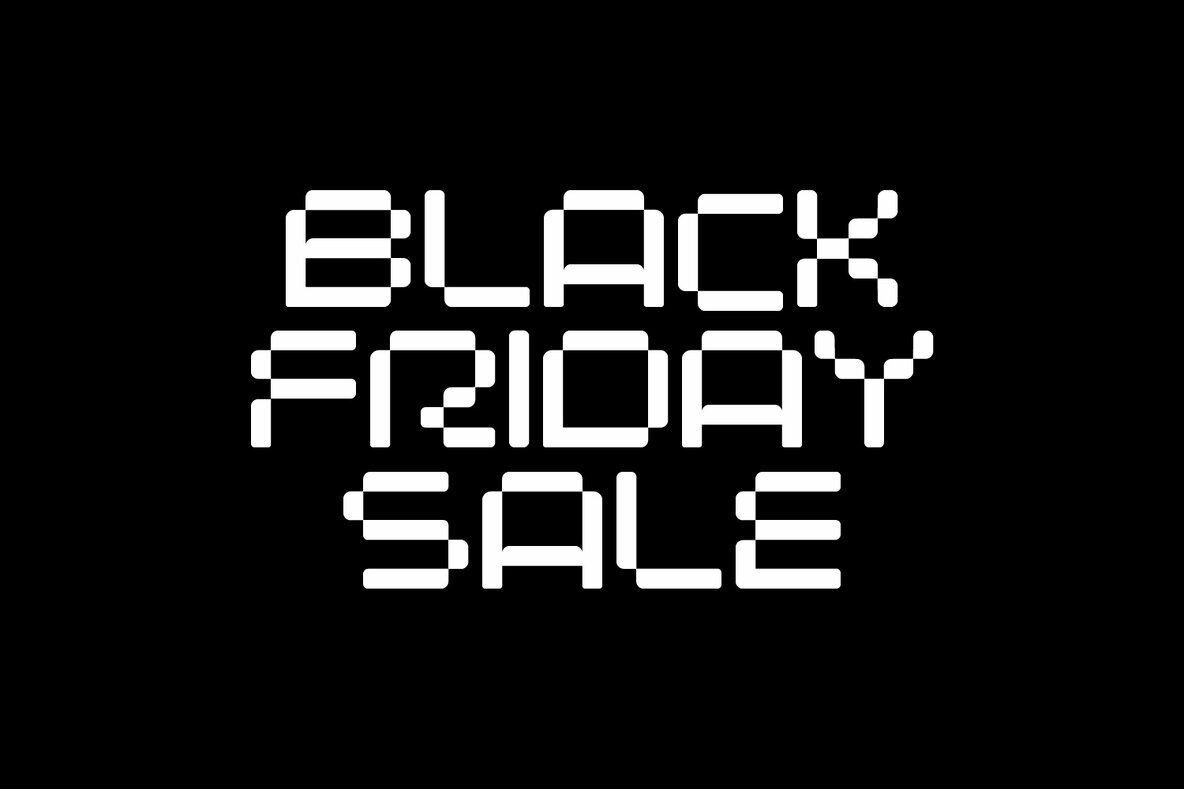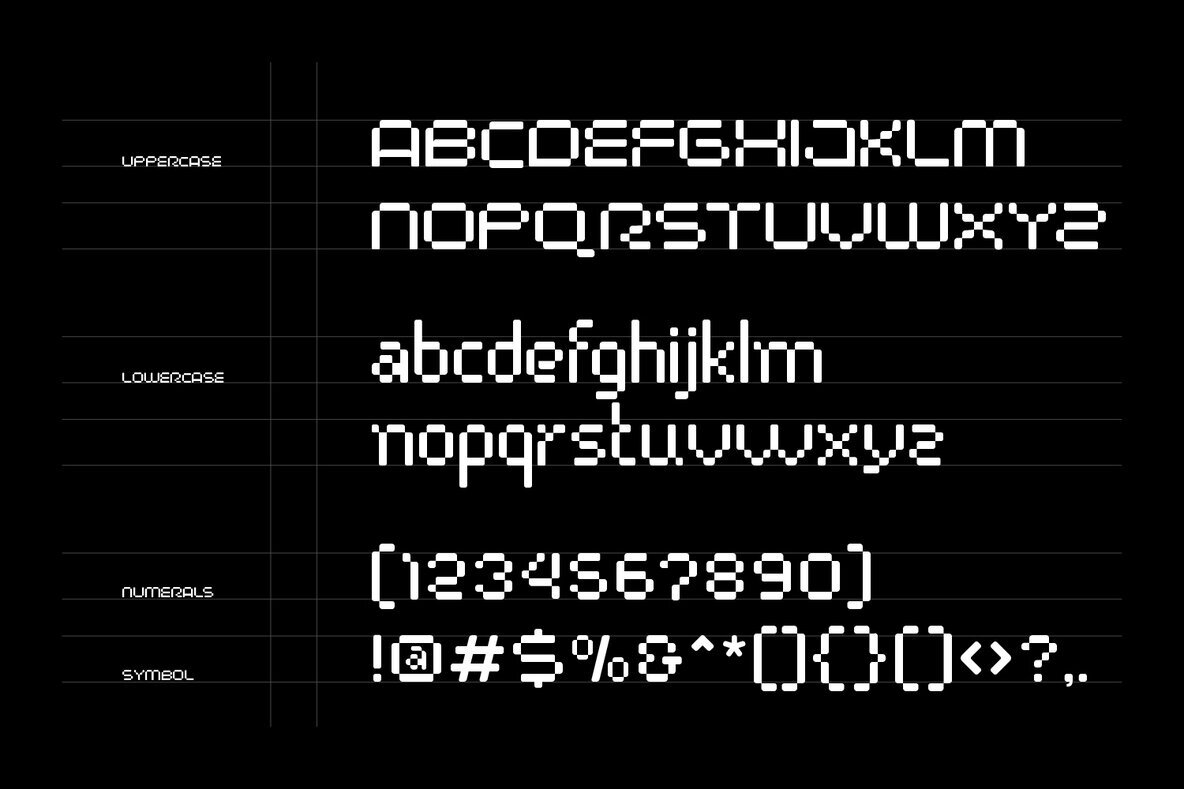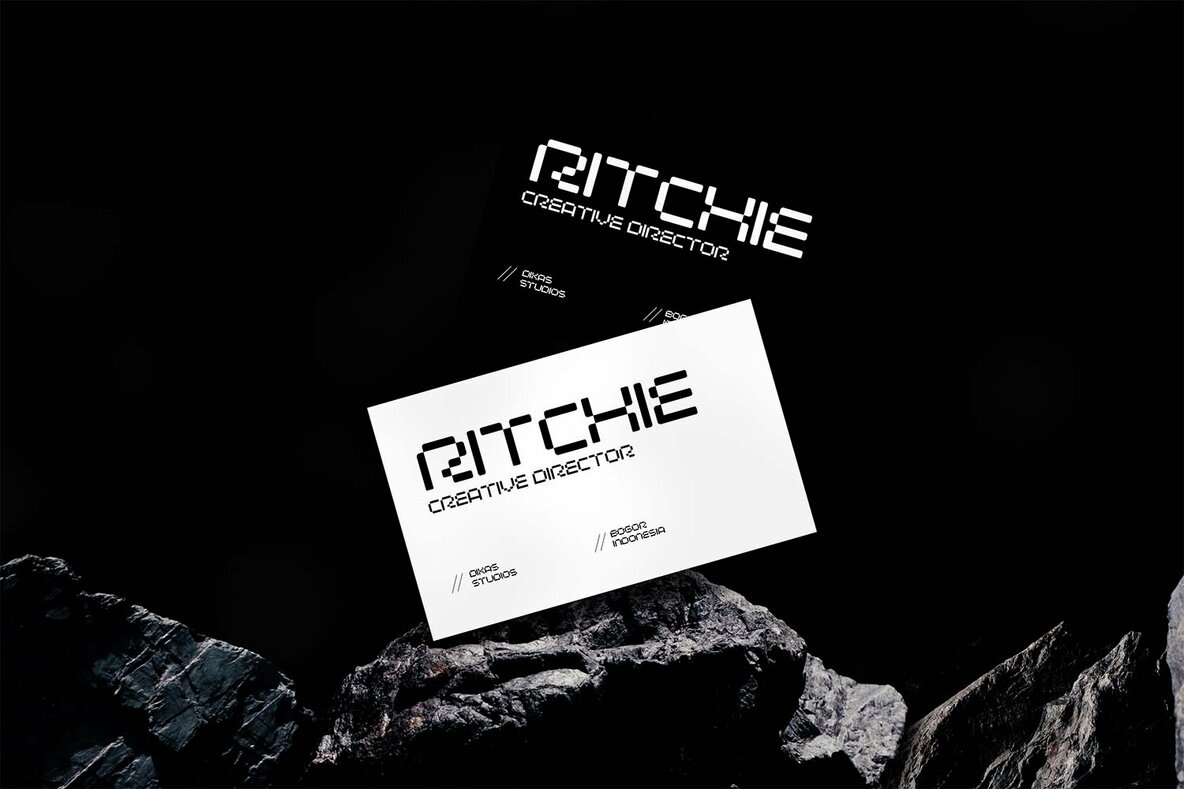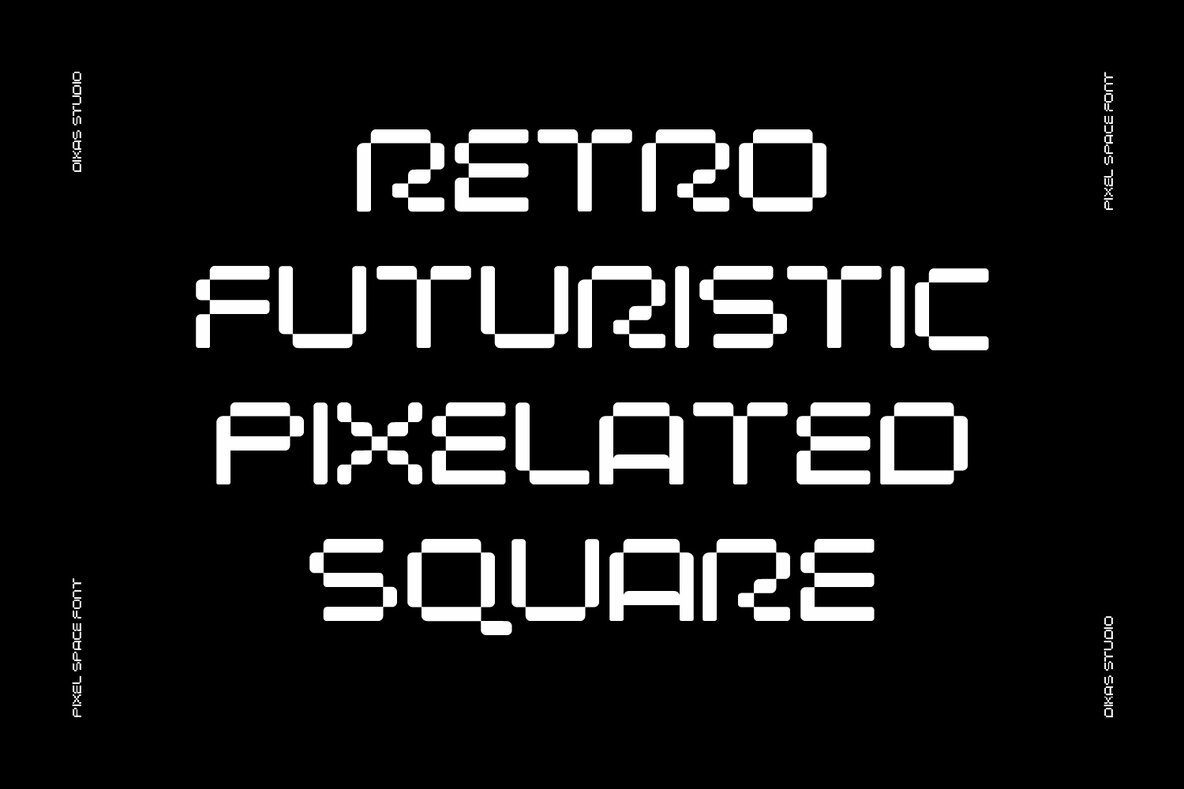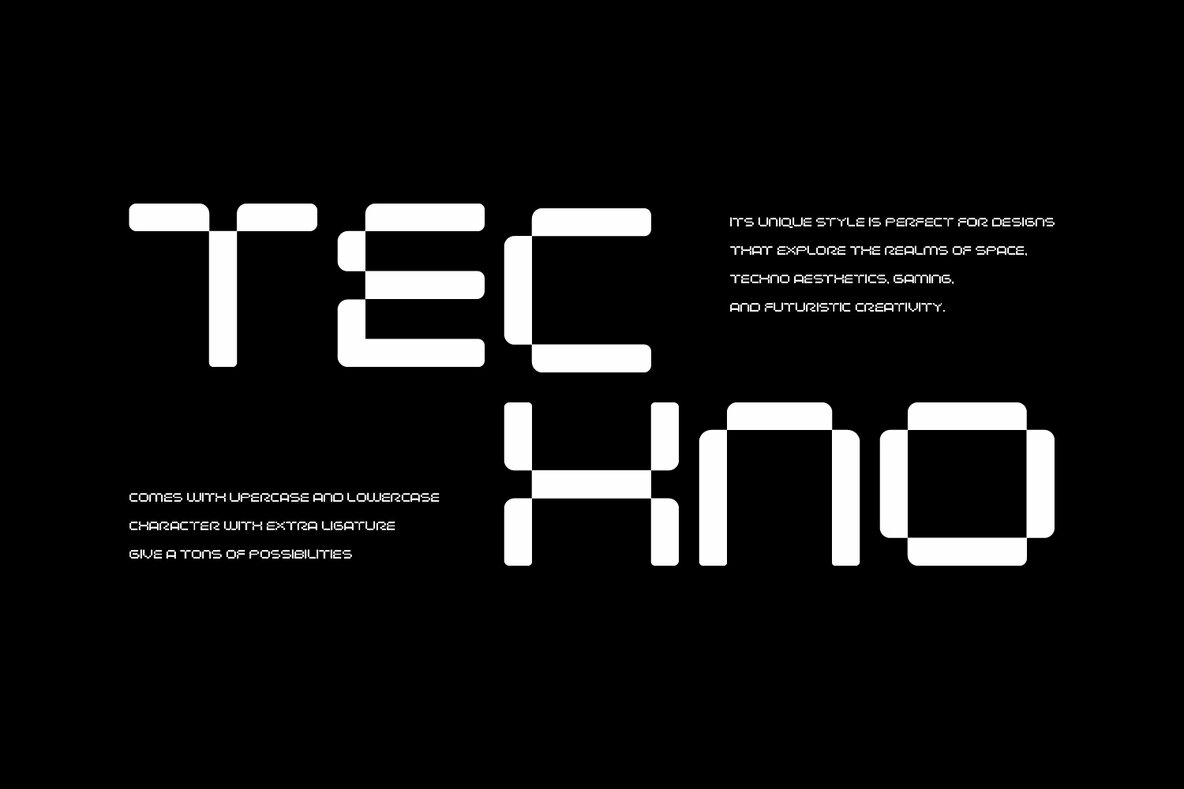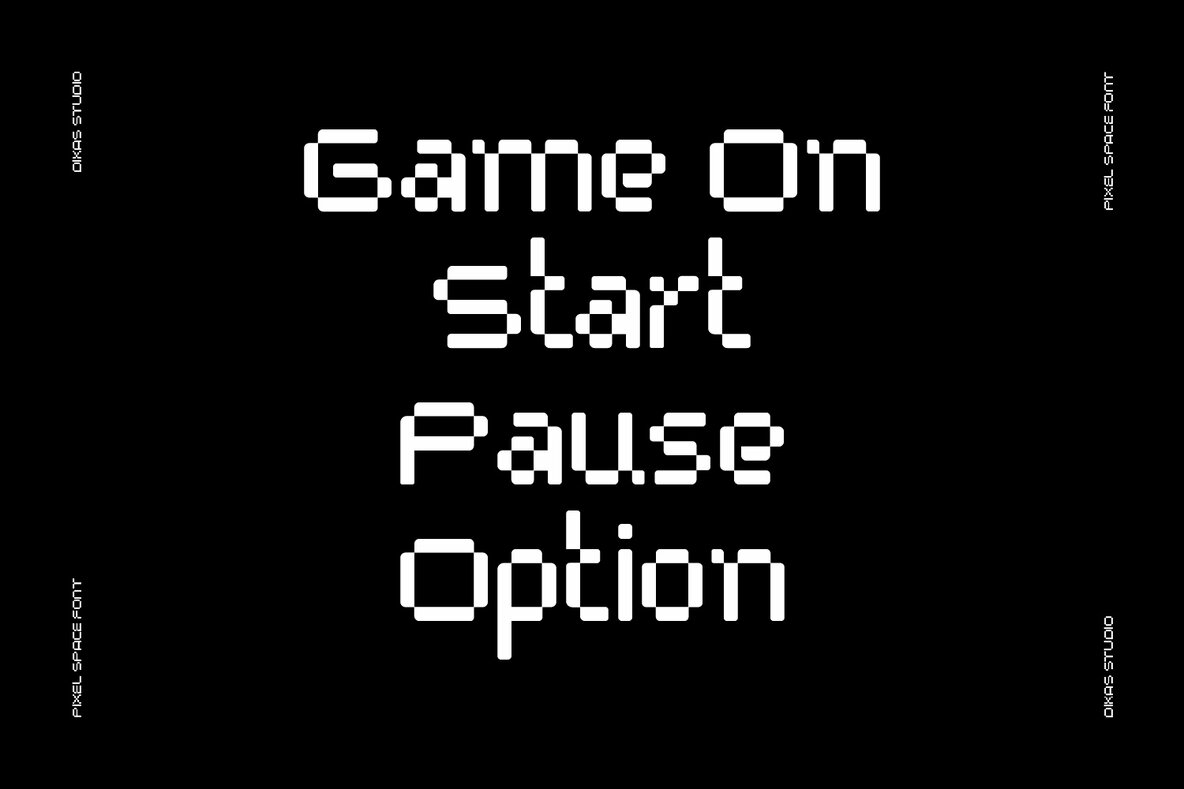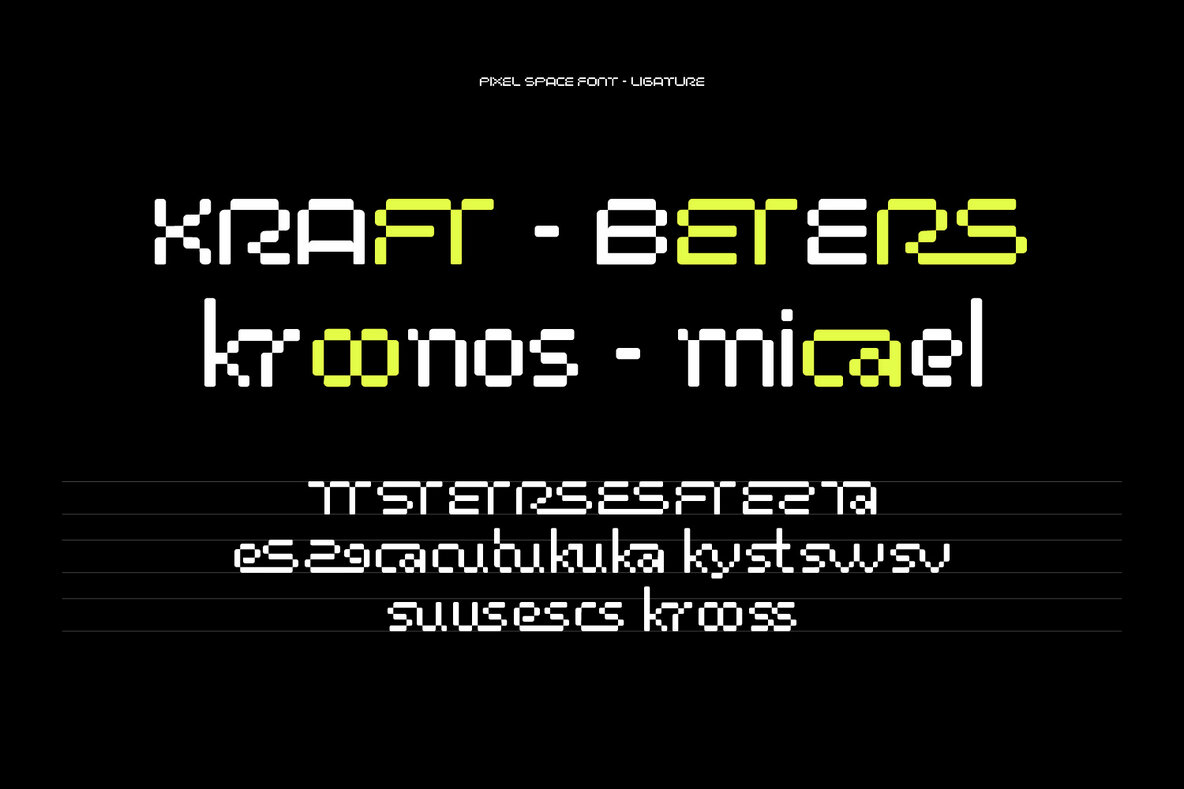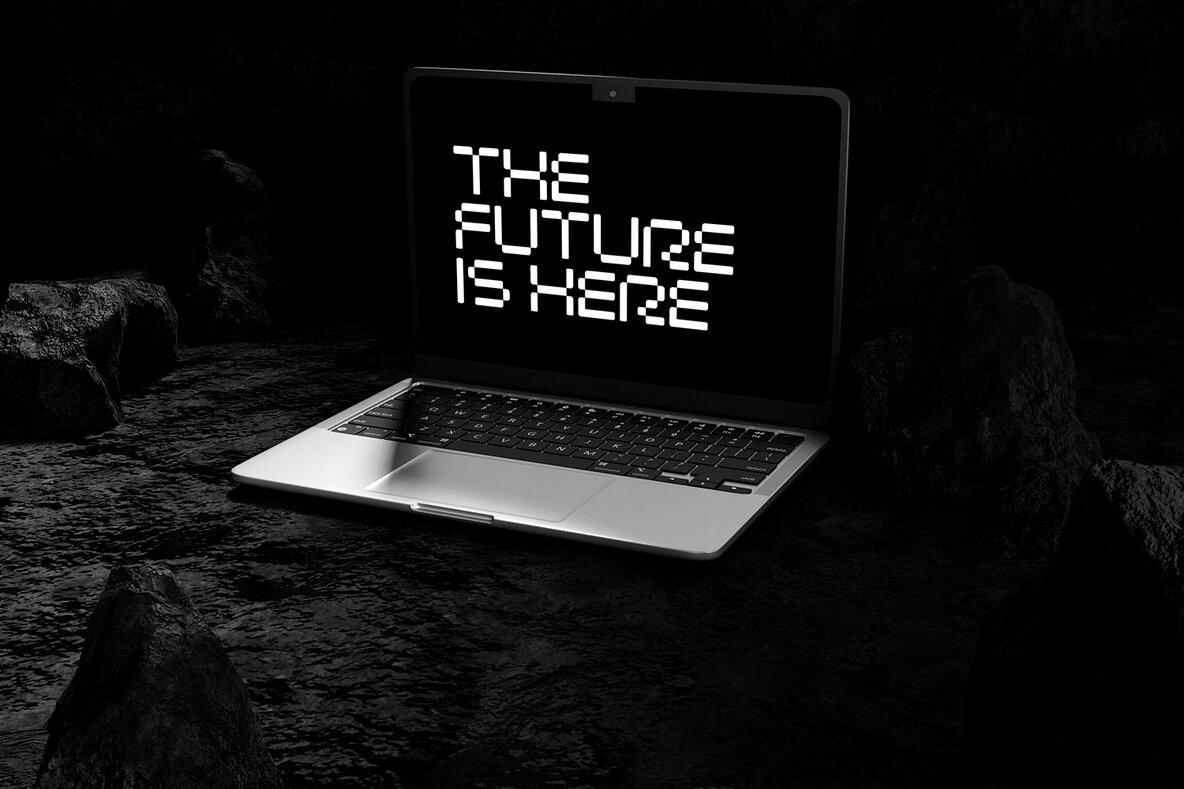
Pixel Space Font
Pixel Space is a sans-serif font that fuses the futuristic with the charm of pixel art. Its unique style is perfect for designs that explore the realms of space, techno aesthetics, gaming, and futuristic creativity. Whether you're working on a sci-fi poster, a game interface, or pixel-inspired art, Pixel Space brings a bold, modern edge to your projects.